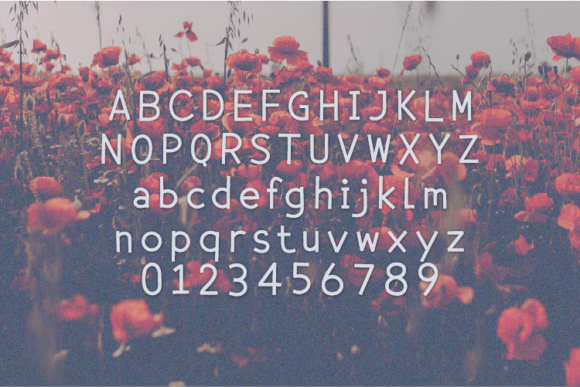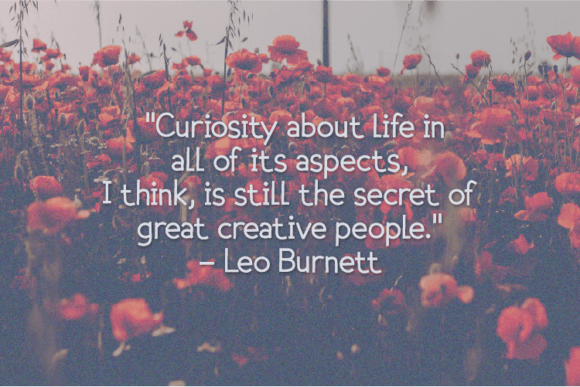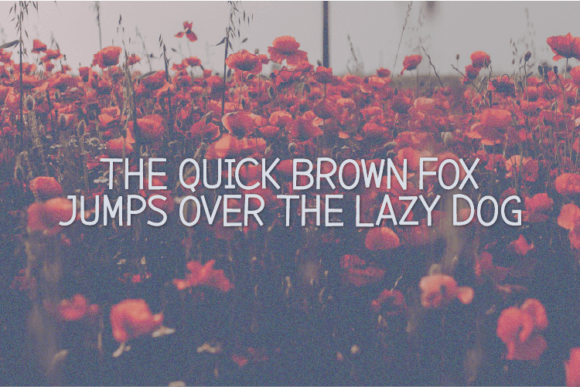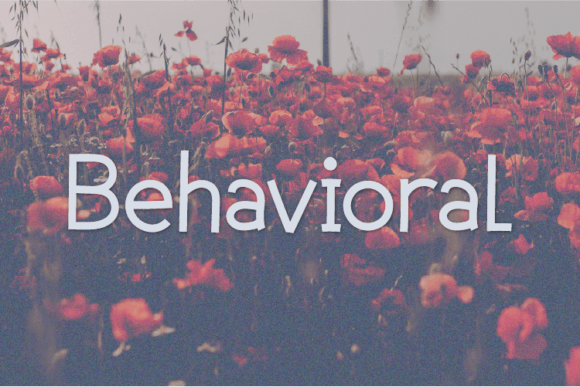
Introducing Behavioral Font: Elevate Your Designs with a Beautiful Sans Serif
Are you on the hunt for a font that can instantly elevate your designs and make them stand out from the crowd? Look no further than Behavioral Font, a stunning sans serif font that’s sure to become a prized asset in your collection. With its clean lines, modern aesthetic, and versatility, Behavioral Font is the perfect choice for designers, crafters, and anyone looking to add a touch of sophistication to their work.
What Makes Behavioral Font So Special?
Behavioral Font is a beautifully crafted sans serif font that’s designed to make a lasting impression. Its sleek, contemporary design makes it perfect for a wide range of applications, from logos and branding to quotes, T-shirts, greeting cards, business cards, and so much more. Whether you’re working on a personal project or a client’s, Behavioral Font is sure to help you create something truly special.
Endless Possibilities with Behavioral Font
One of the best things about Behavioral Font is its incredible versatility. This font can be used in a multitude of ways, making it an excellent addition to any designer’s toolkit. Here are just a few ideas to get you started:
- Quotes and Posters: Add a touch of elegance to your inspirational quotes and posters with Behavioral Font’s clean, modern aesthetic.
- T-Shirts and Apparel: Design eye-catching T-shirts, hoodies, and other apparel that will make your customers stand out from the crowd.
- Greeting Cards and Stationery: Add a personal touch to your greeting cards, invitations, and stationery with Behavioral Font’s beautiful, sans serif design.
- Business Cards and Marketing Materials: Create professional-looking business cards, brochures, and other marketing materials that will help you make a great impression.
Why Choose Behavioral Font?
With so many fonts to choose from, why should you choose Behavioral Font? Here are just a few reasons why this font stands out from the rest:
- Unique and Modern Design: Behavioral Font boasts a unique and modern design that’s sure to make your work stand out.
- Highly Versatile: This font can be used in a wide range of applications, making it an excellent addition to any designer’s toolkit.
- Easy to Read: Behavioral Font is incredibly easy to read, making it perfect for body text, headings, and more.
- Scalable: This font is highly scalable, ensuring that it will look great in any size or resolution.
Tips for Using Behavioral Font
Now that you know a little more about Behavioral Font, here are some tips for using it effectively in your designs:
- Experiment with Different Sizes: Don’t be afraid to experiment with different font sizes to find the perfect fit for your design.
- Pair it with Other Fonts: Try pairing Behavioral Font with other fonts to create a unique and eye-catching combination.
- Use it for Headings and Titles: Behavioral Font is perfect for headings and titles, so don’t be afraid to use it to add a touch of elegance to your work.